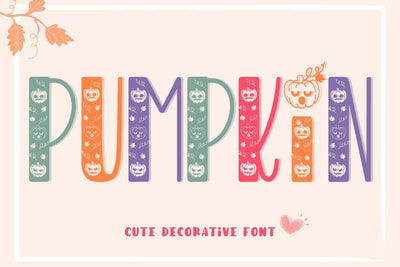
Pumpkin - Cute Deco Font
Introducing "Pumpkin Font" a charming decorative font that effortlessly infuses your projects with a delightful autumn vibe. This unique font is a perfect blend of adorable pumpkin silhouettes and handcrafted typography, resulting in a playful and versatile design.